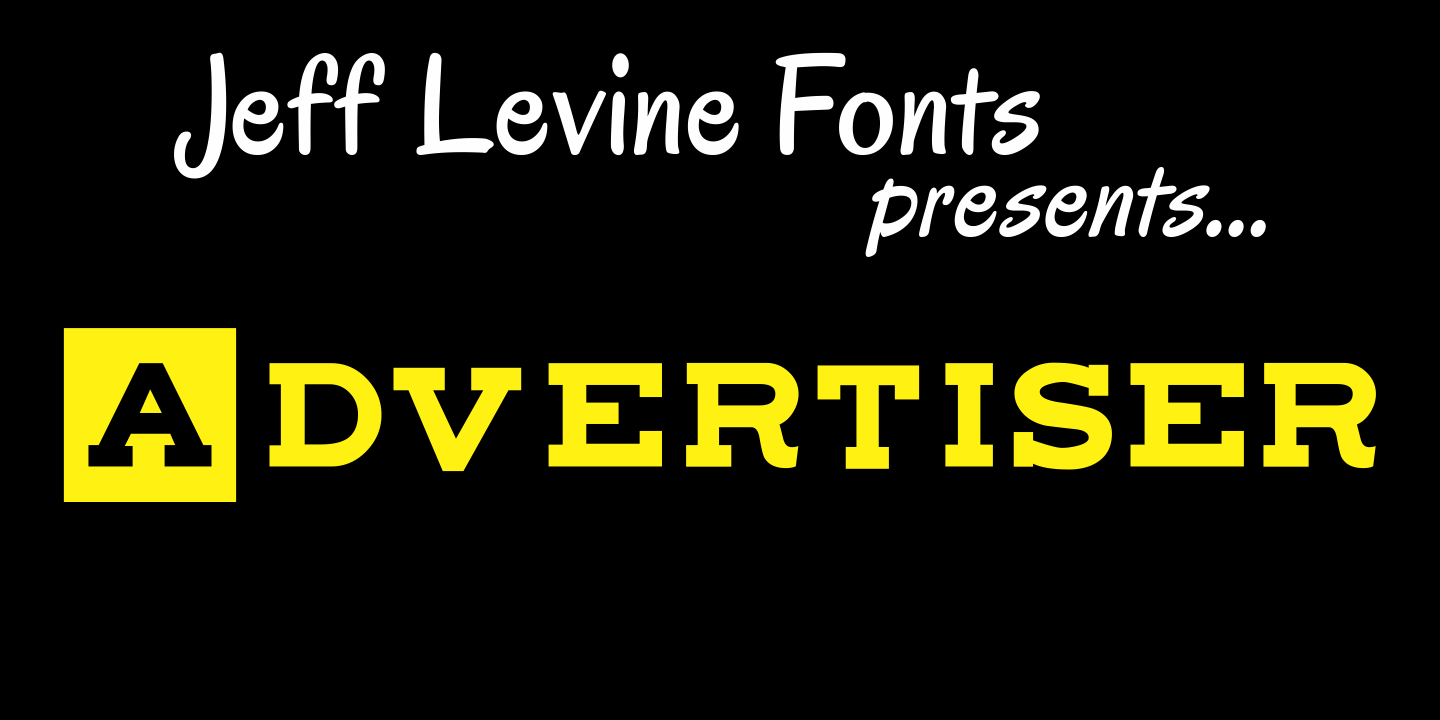
Advertiser
Advertiser JNL is a simple A-Z only font used to make retro-styled titles and names. Based on a popular style of retail signage from the 1950s and 1960s, alternating keystrokes will create a contrast of positive and negative letters. The capital letters have the alphabet in white on black boxes, the lower case have the black letters alone – with the white space conforming to the width of the black boxes.
In a pinch, the boxed characters can also be used as initial caps. For a more complete character set with the same style of lettering, use DuBois Block JNL.